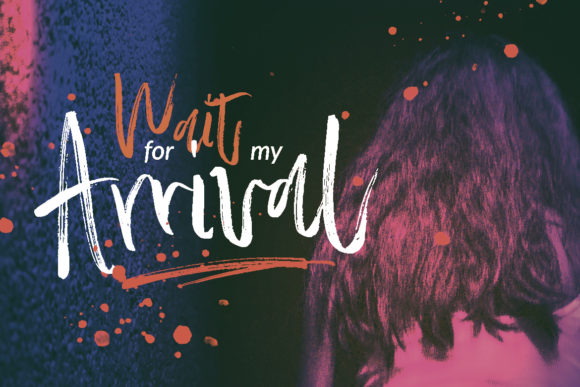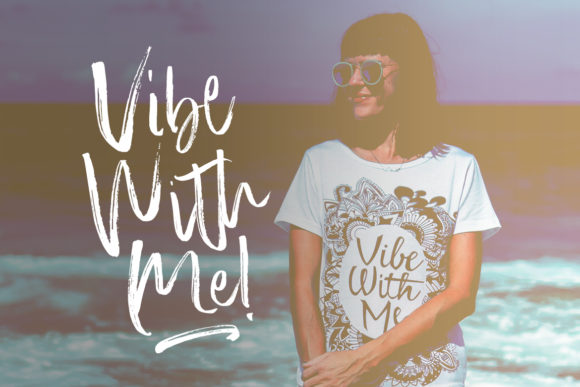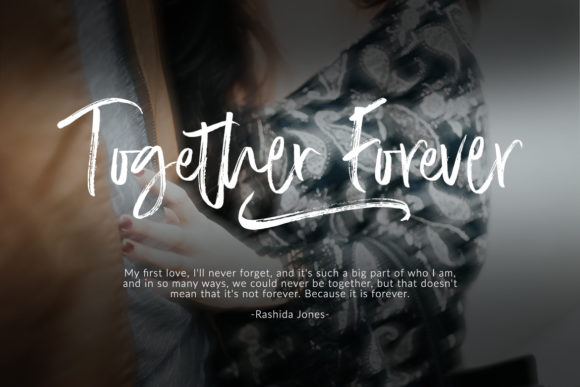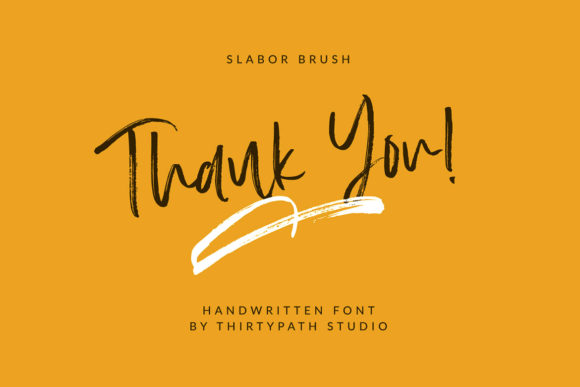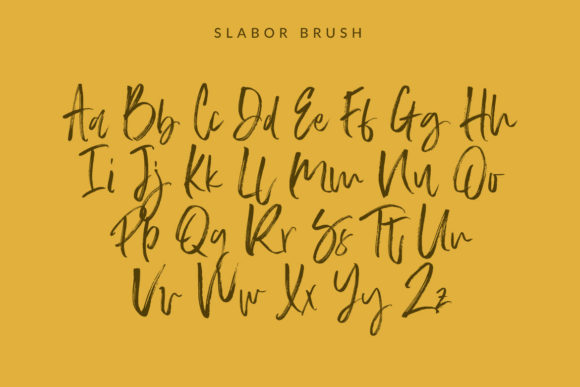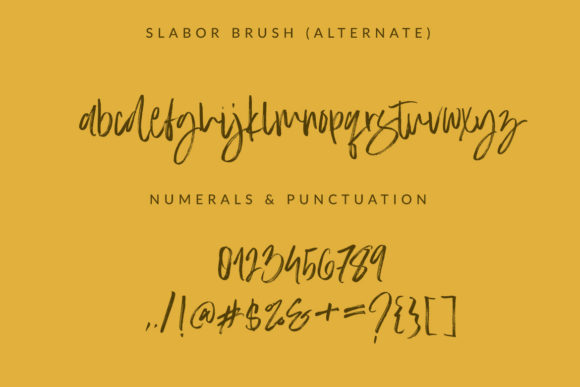
Slabor Brush Font
About Slabor Brush Font
Slabor Brush is a relaxed handwritten font, created with the help of a brush pen. Fresh and flowing, this font looks outstanding on any summery or beach related design.